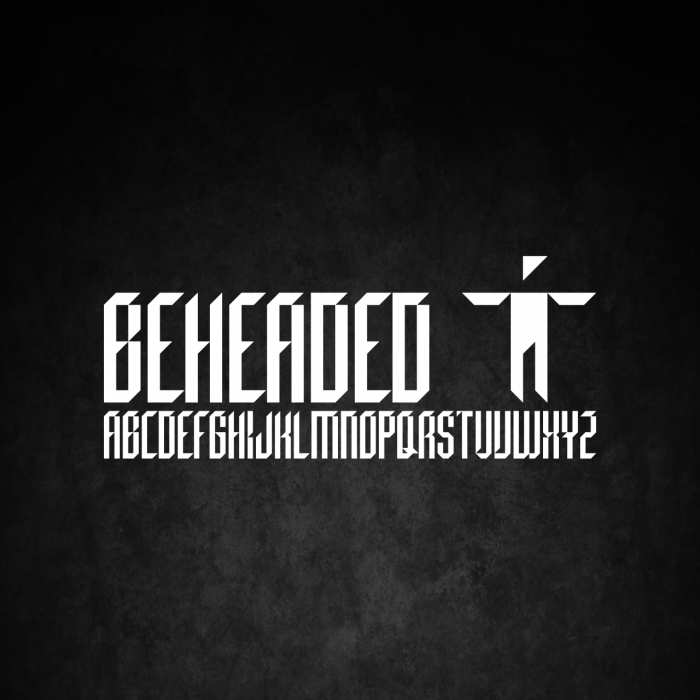
Congratulations! FontStruct Staff have deemed your FontStruction worthy of special mention. “Beheaded” is now a Top Pick.
Unusual design, the notches, sharp corners and triangles lighten what could have been a rather 'tight' font. Lots of diacritics, too :) Congratulations on your first TP !
Congratulations to your Top Pick award. Well done. 10/10
Мне нравится 9 из 10. Было бы 10 если бы были кириллические знаки.
Congratulations on the TP :)